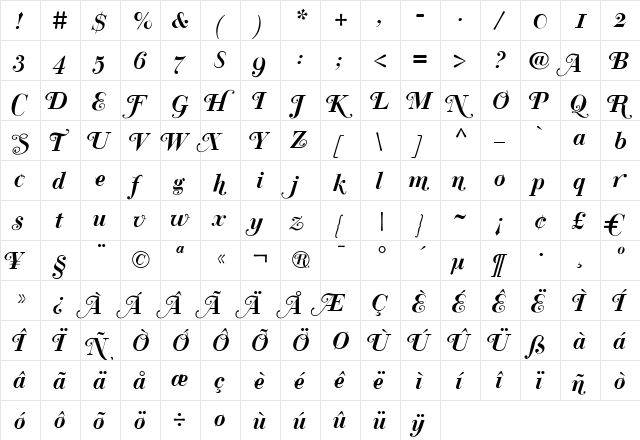
Bodoni Classic Swashes Bold Italic
Design Context for Bodoni Classic Swashes Typeface
Bodoni Classic Swashes has the warm character of retro typography — evoking diners, record sleeves, and the golden age of print advertising. The slanted form adds forward momentum and visual energy. The heavy weight commands attention and anchors typographic hierarchies.
Ideal for diner signage, record shop branding, 70s/80s-themed projects, and heritage product labels.
Font Pairing: Combine Bodoni Classic Swashes with a simple slab or neutral sans — period-accurate companions reinforce the vintage feel without competing for attention.
Pro Tip: Lean into Bodoni Classic Swashes's period character by pairing it with aged paper textures, muted colour palettes, and vintage illustration styles.